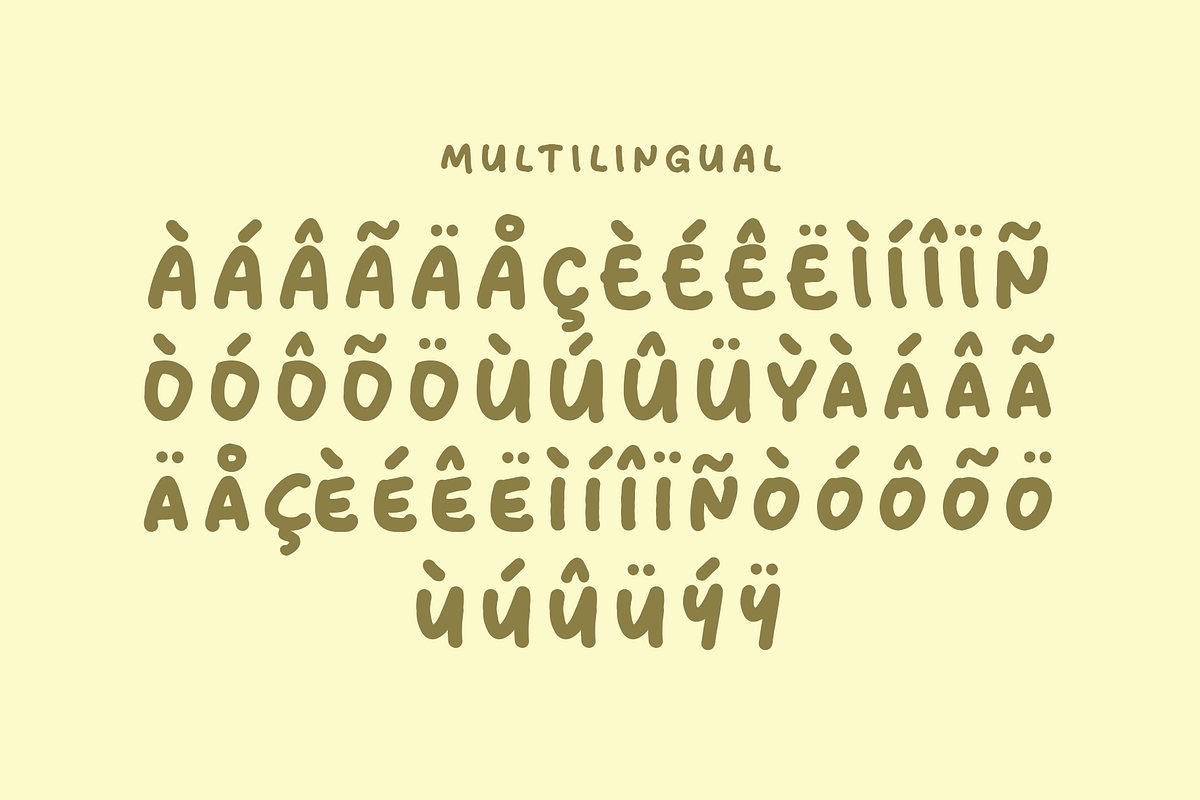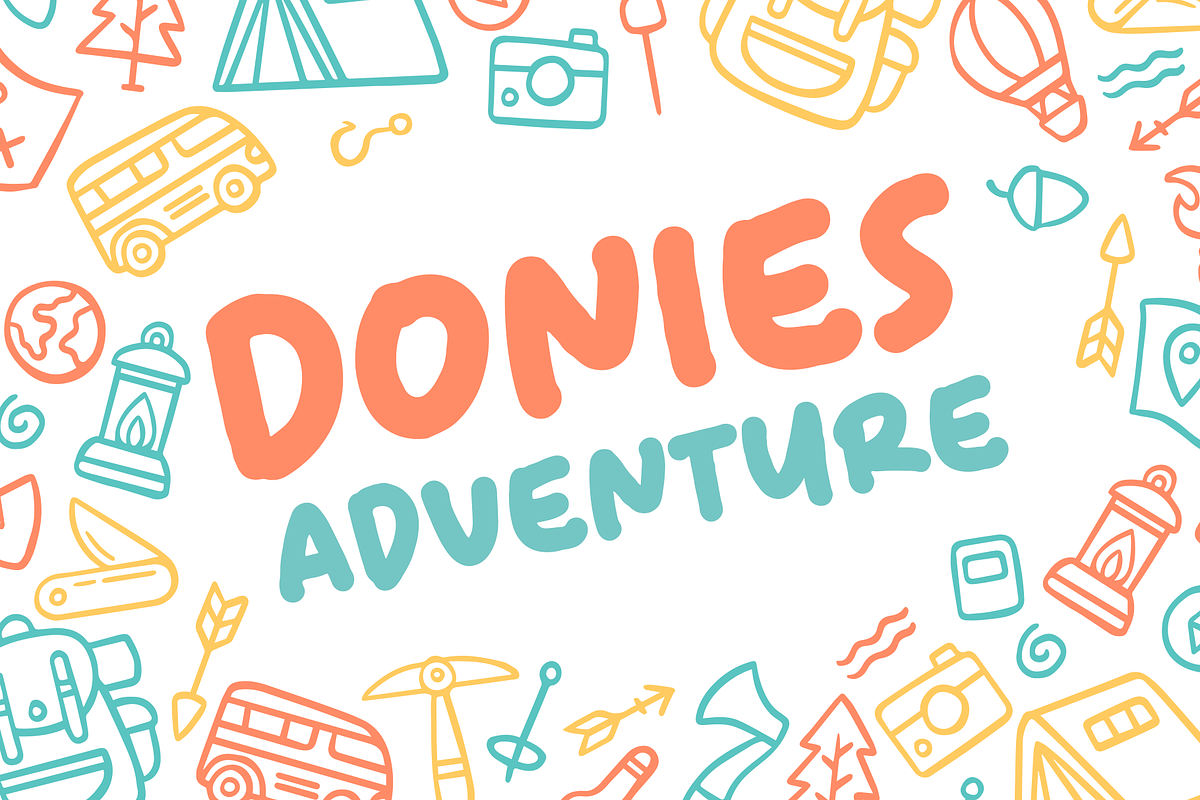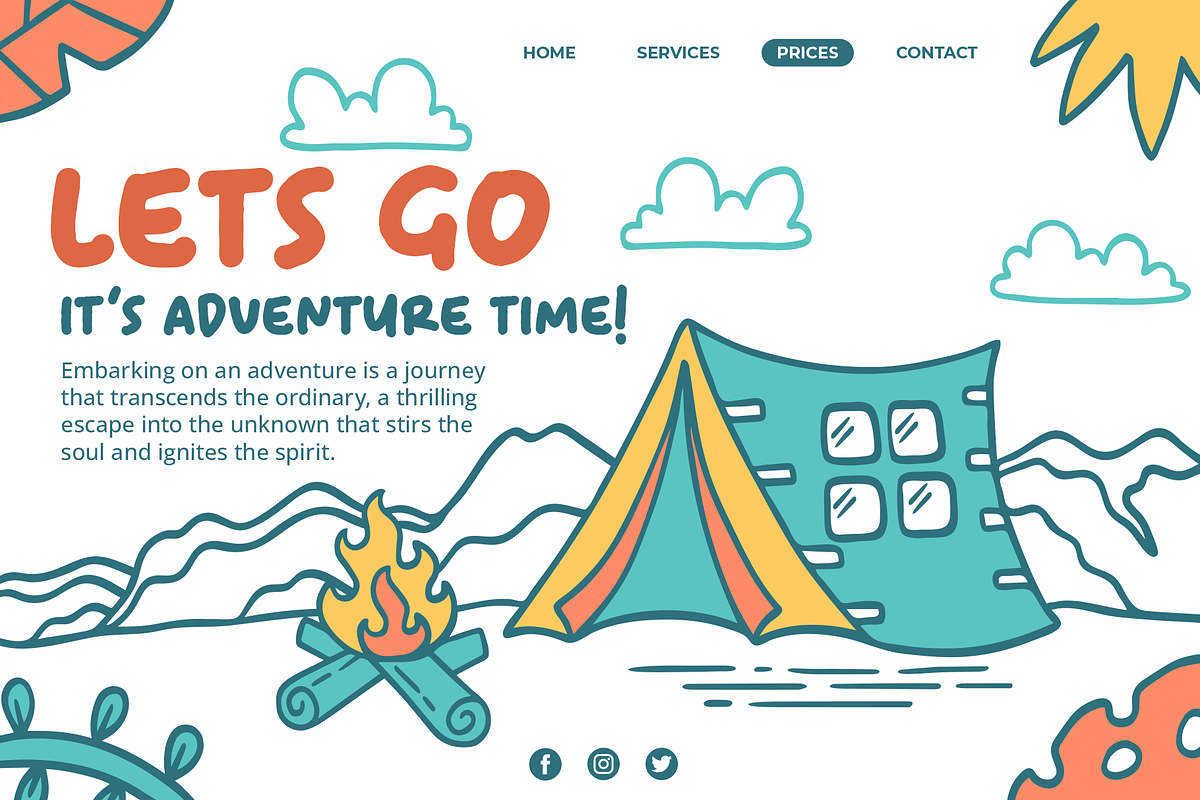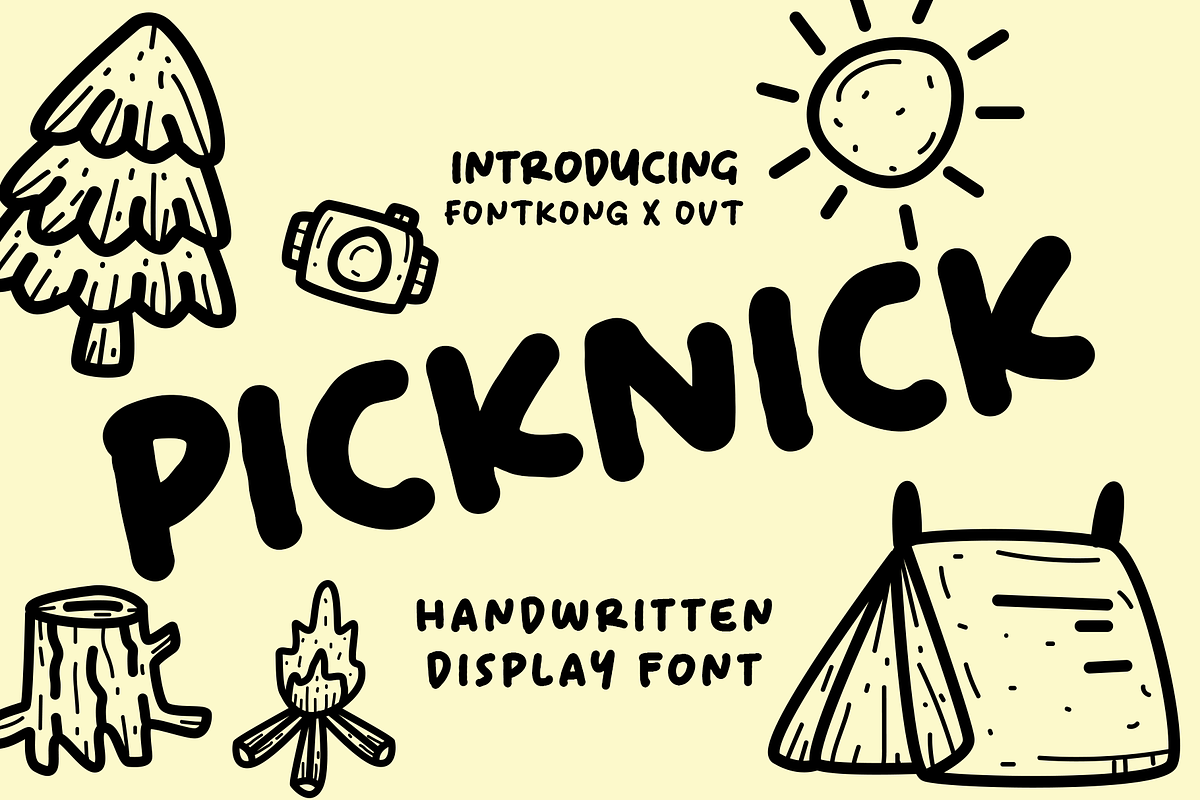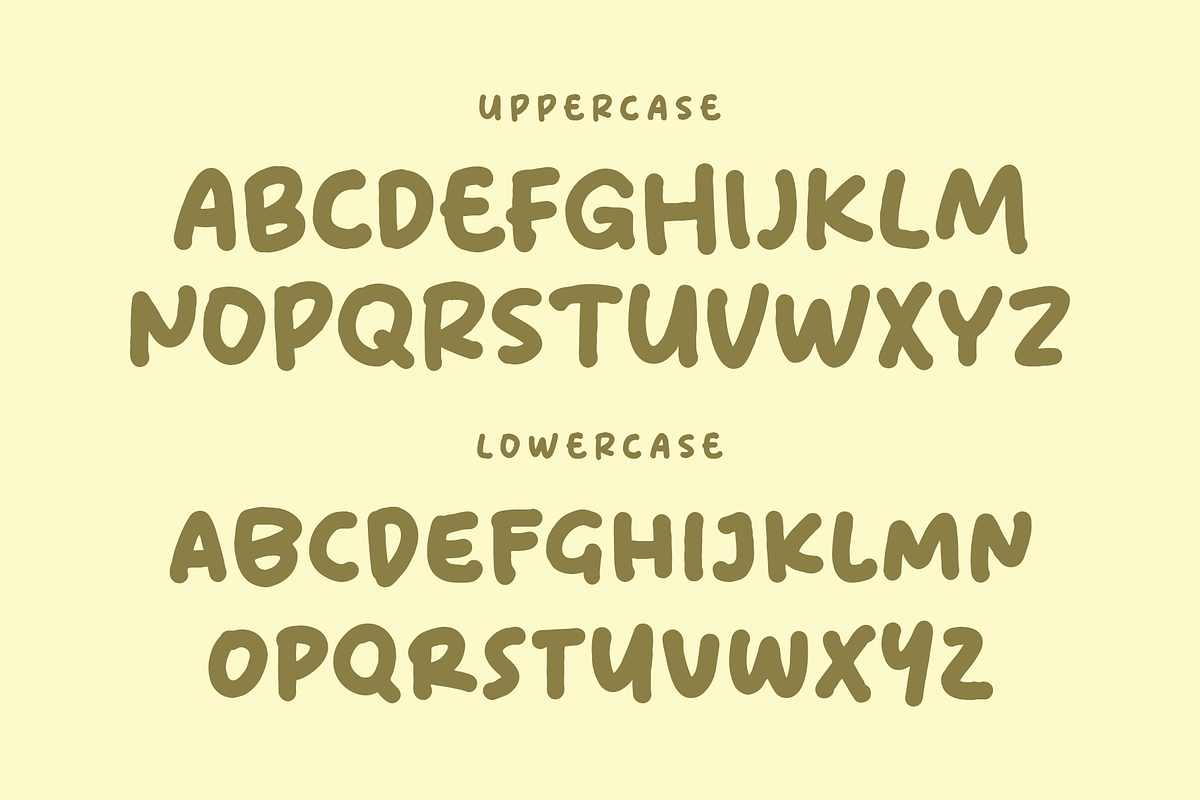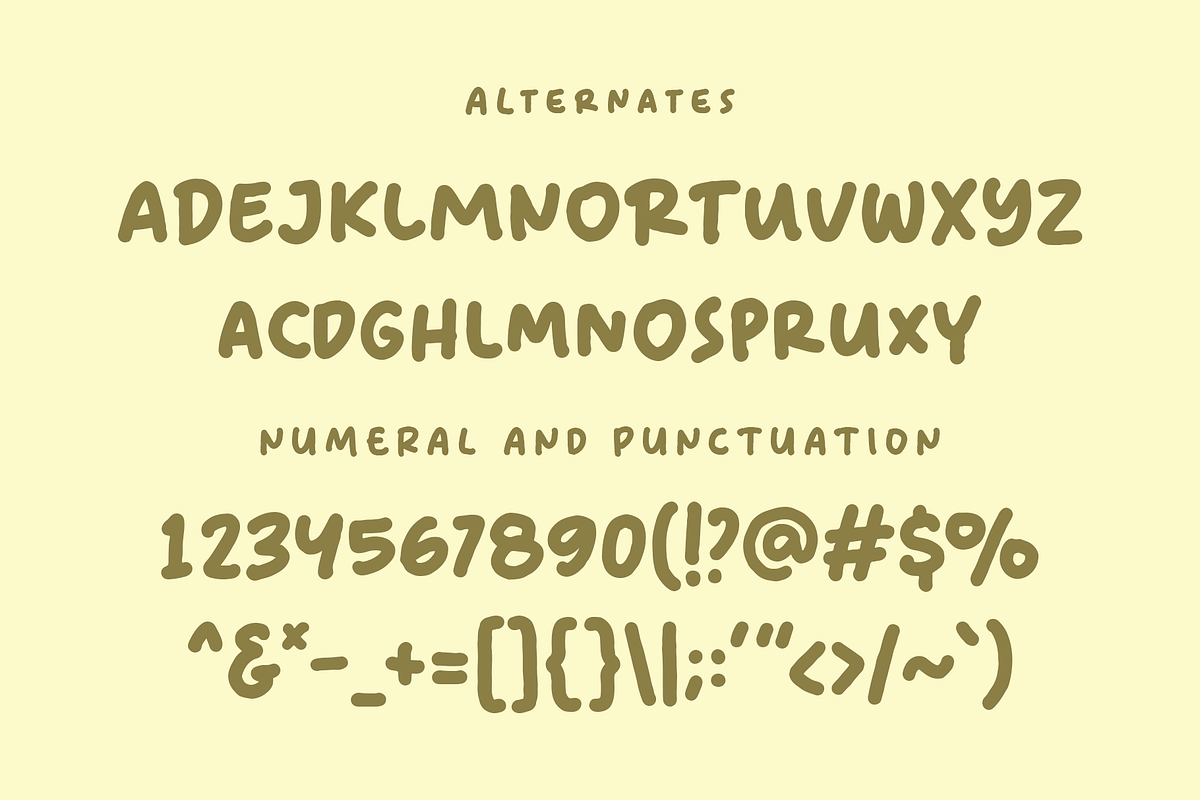
Picknick - Handwritten Display Font
Picknick - A Handwritten Display Font
Picknick is a delightful and playful handwritten display font designed to add a touch of joy and charm to your design projects. With its whimsical strokes and friendly letterforms, Picknick is perfect for fun posters, cheerful invitations, playful branding, and vibrant packaging. This font captures the essence of carefree creativity, ensuring your work stands out with a warm and engaging style.
Crafted with care, Picknick features smooth and flowing characters that offer excellent readability and visual appeal. Its playful design makes it ideal for display purposes, providing a lively and memorable presence. The font’s versatility allows it to adapt seamlessly to various design contexts, from digital screens to printed materials, making it a valuable asset for any designer aiming to create joyful and captivating visuals.
Elevate your design projects with Picknick, a font that embodies the spirit of fun and imagination. Its unique style and adaptability make it an essential addition to any designer’s toolkit for crafting vibrant and engaging designs. Enhance your work with Picknick and experience the charm of handwritten display typography.